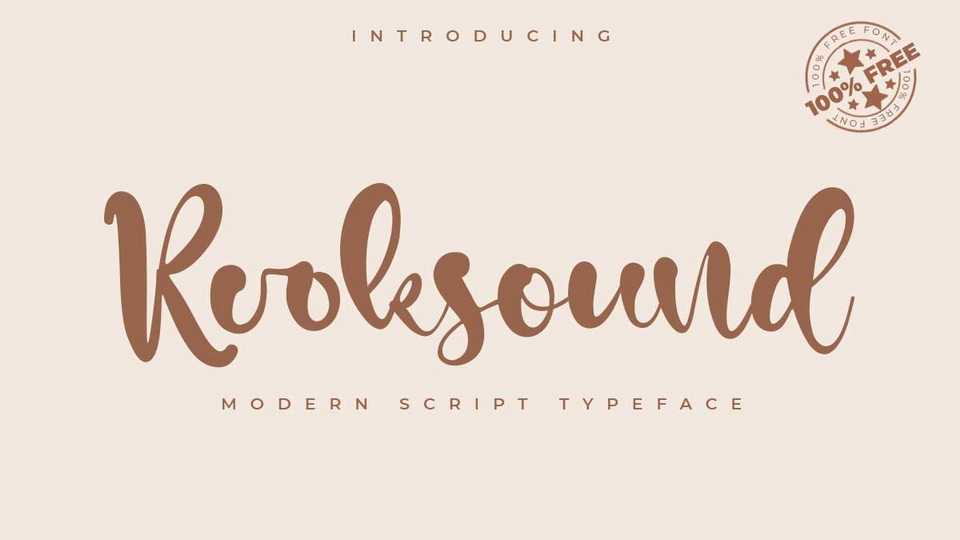
Download Rooksound font, a handwritten typeface with a casual, natural flowing font. Rooksound is well suited for adorable invitation for wedding, birthday, special day and also perfect for your other projects branding.
Designer: VZTYPE Studio